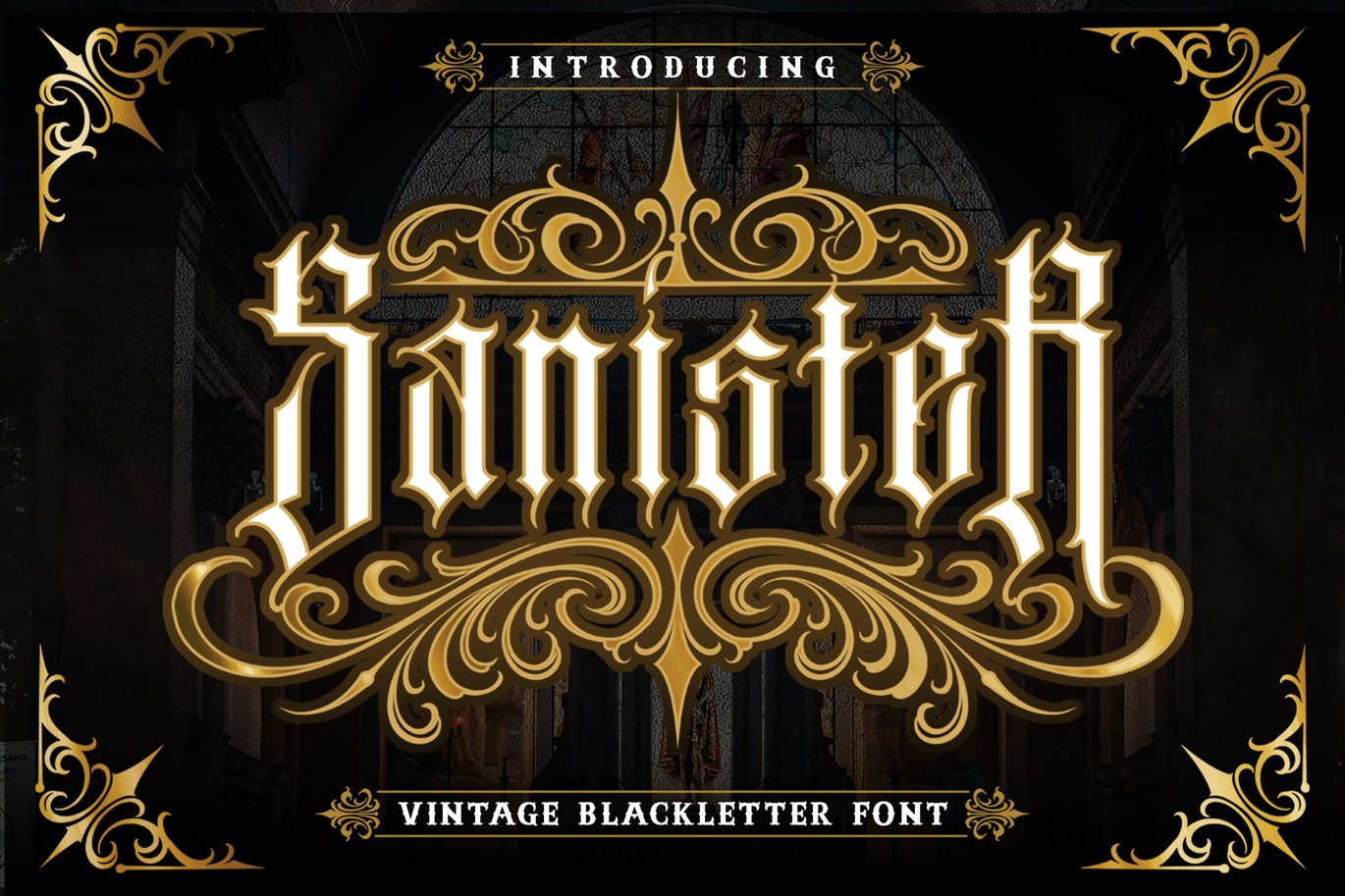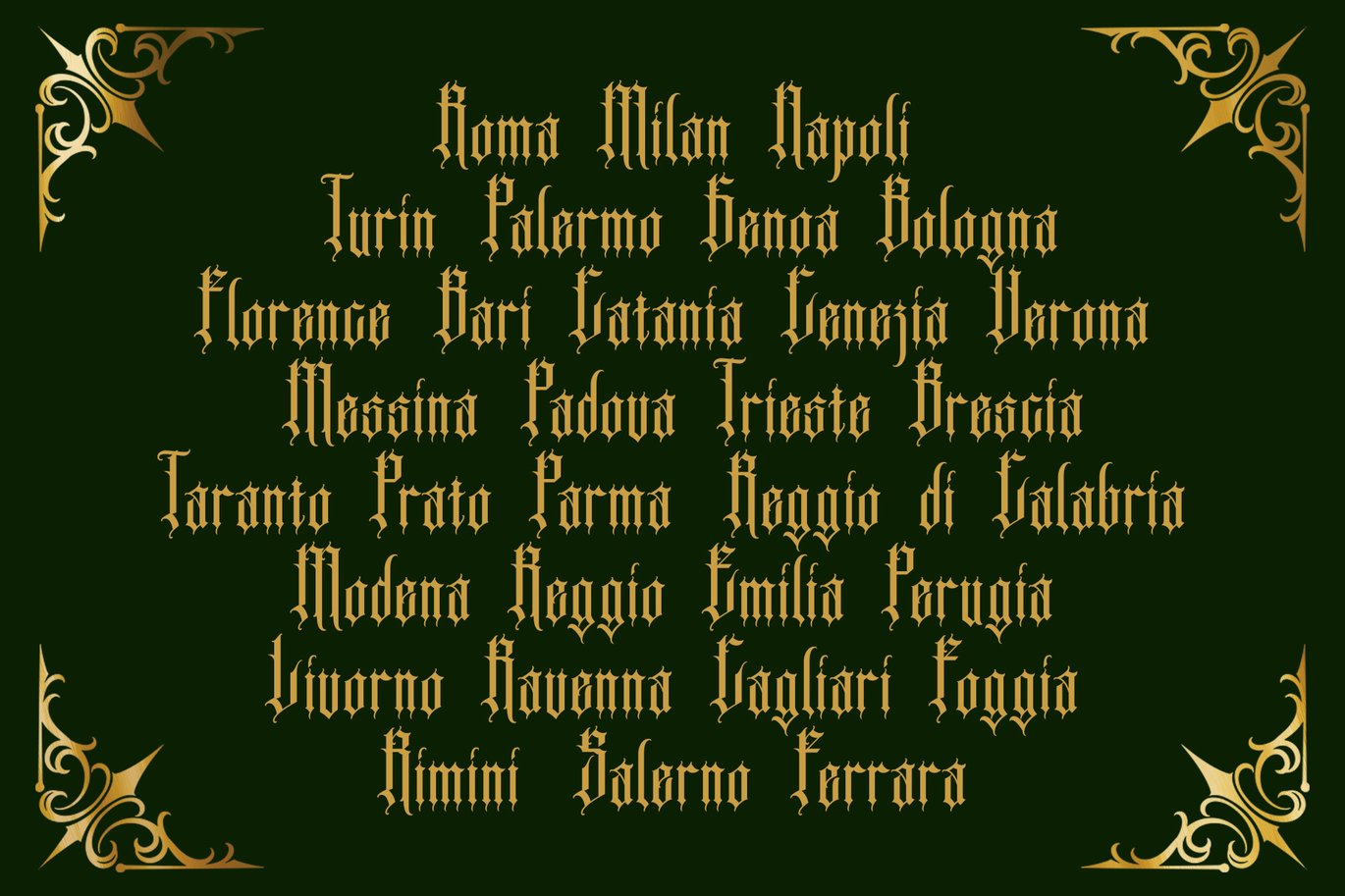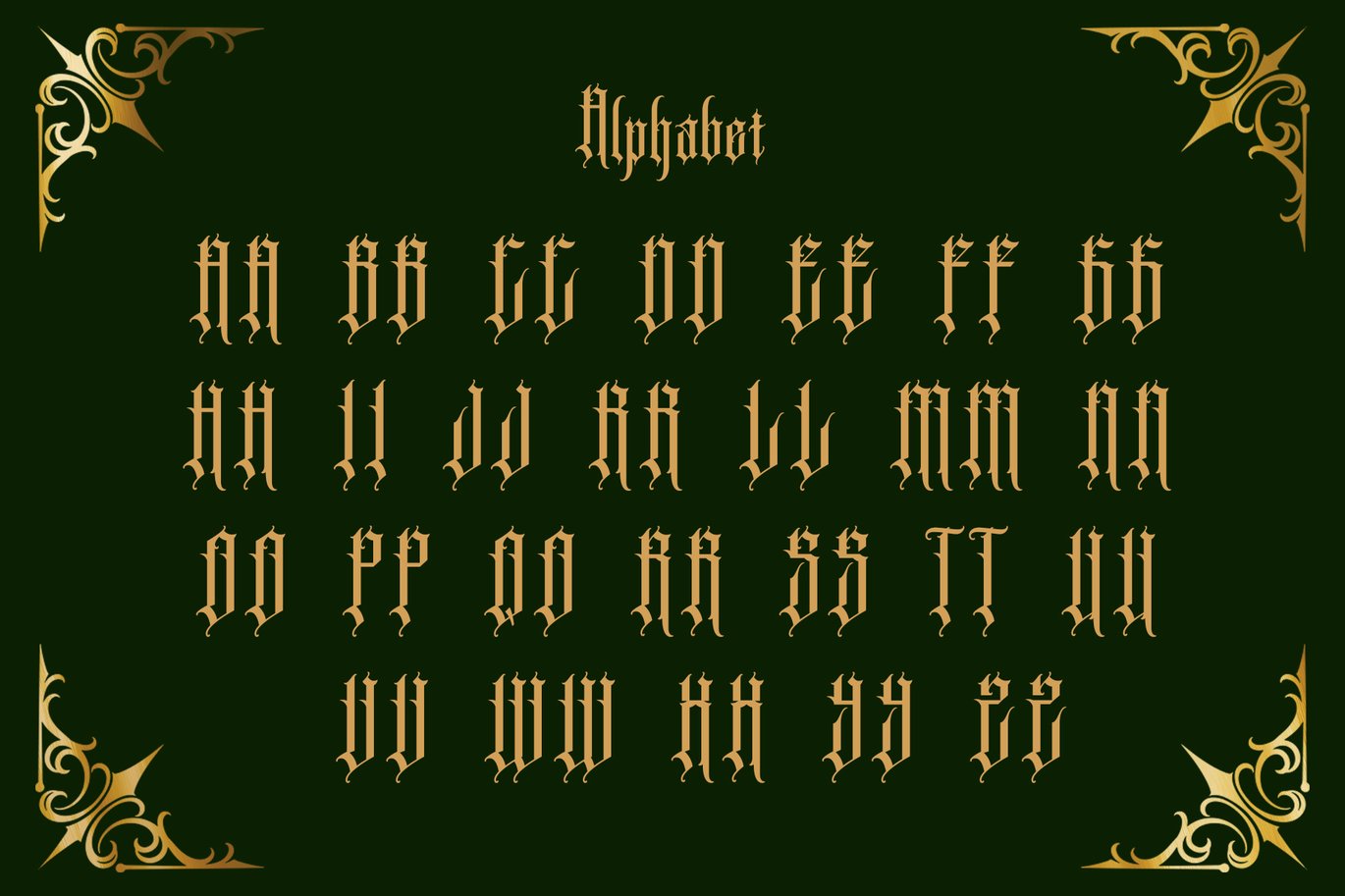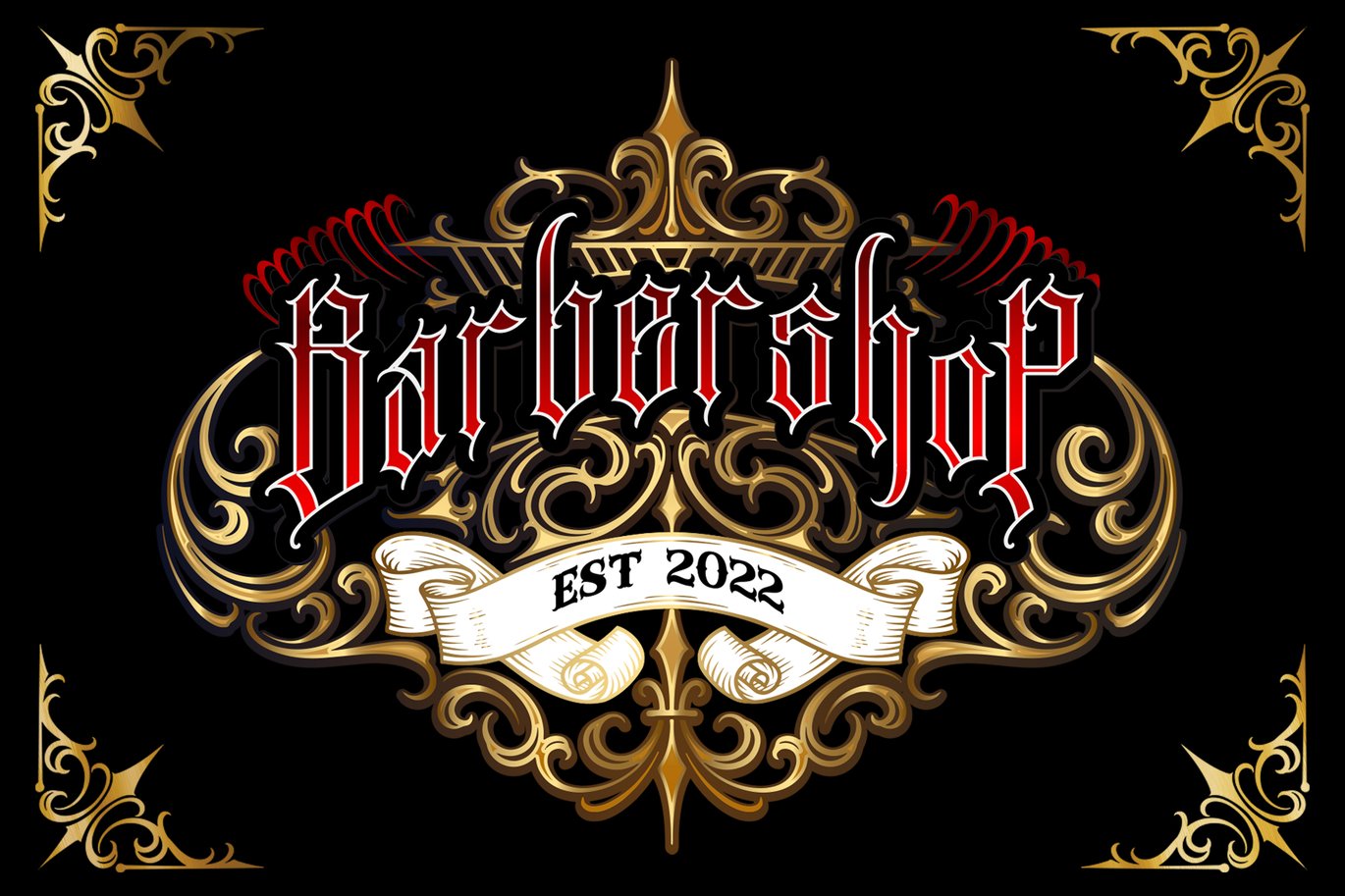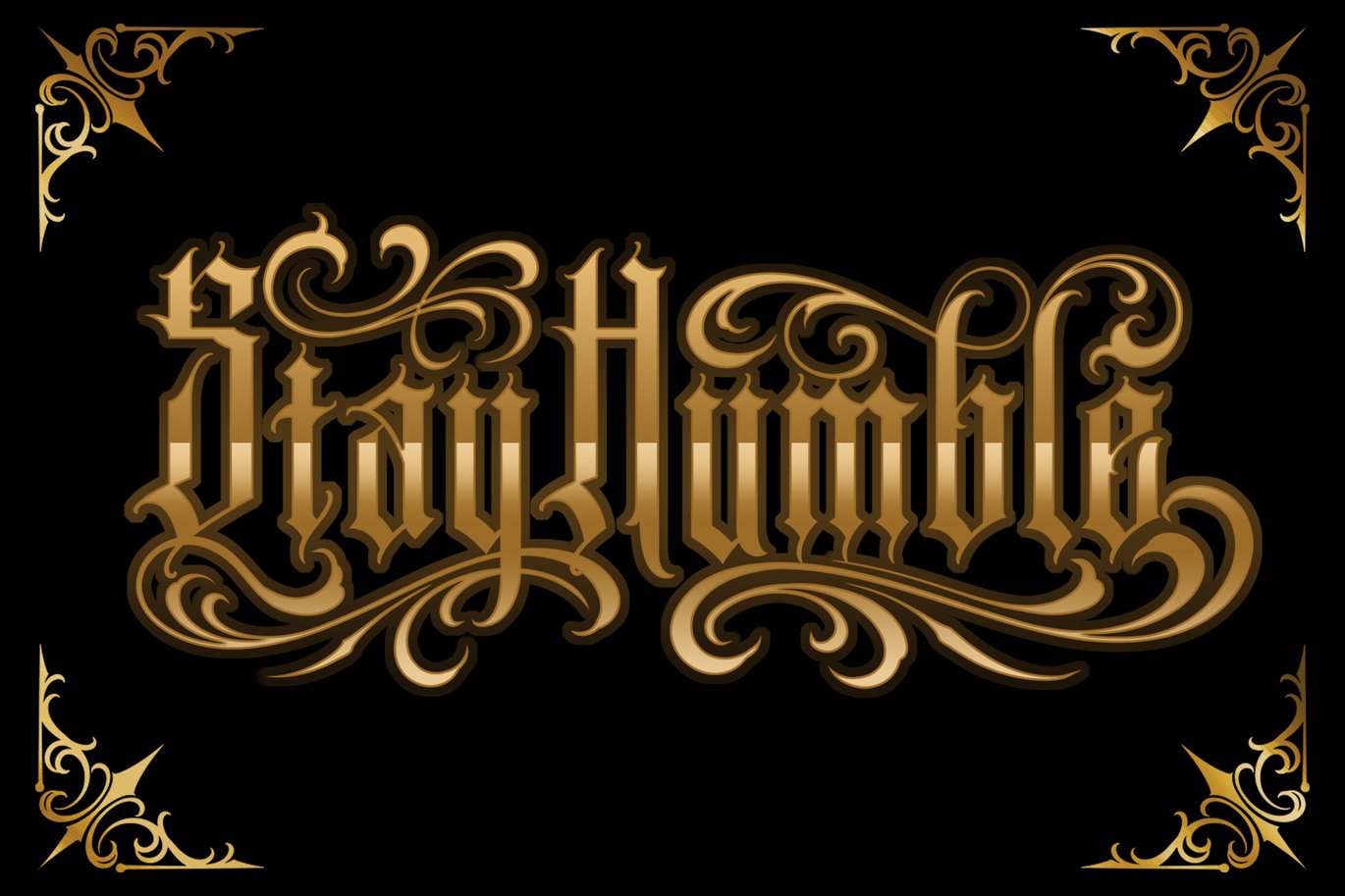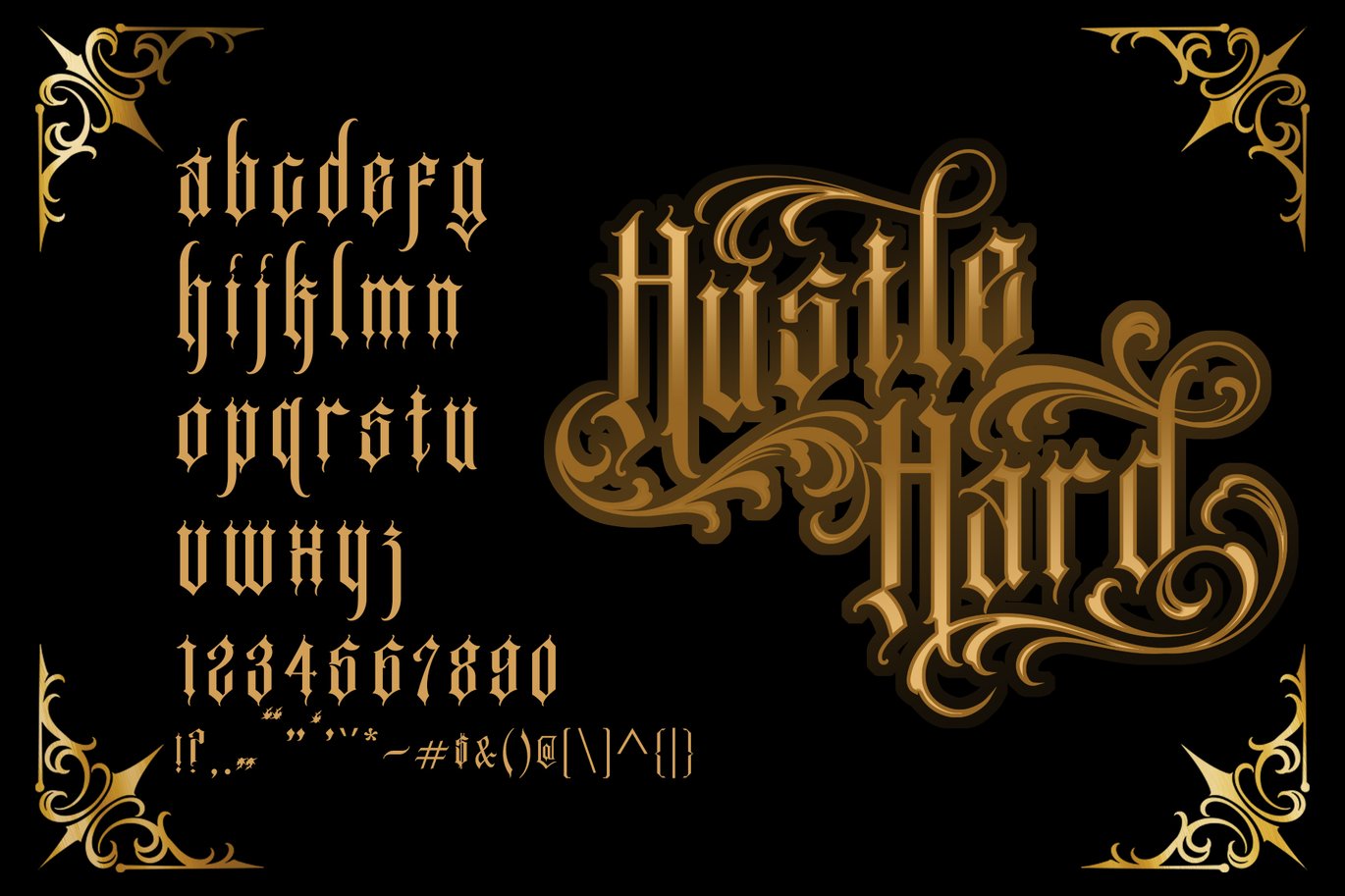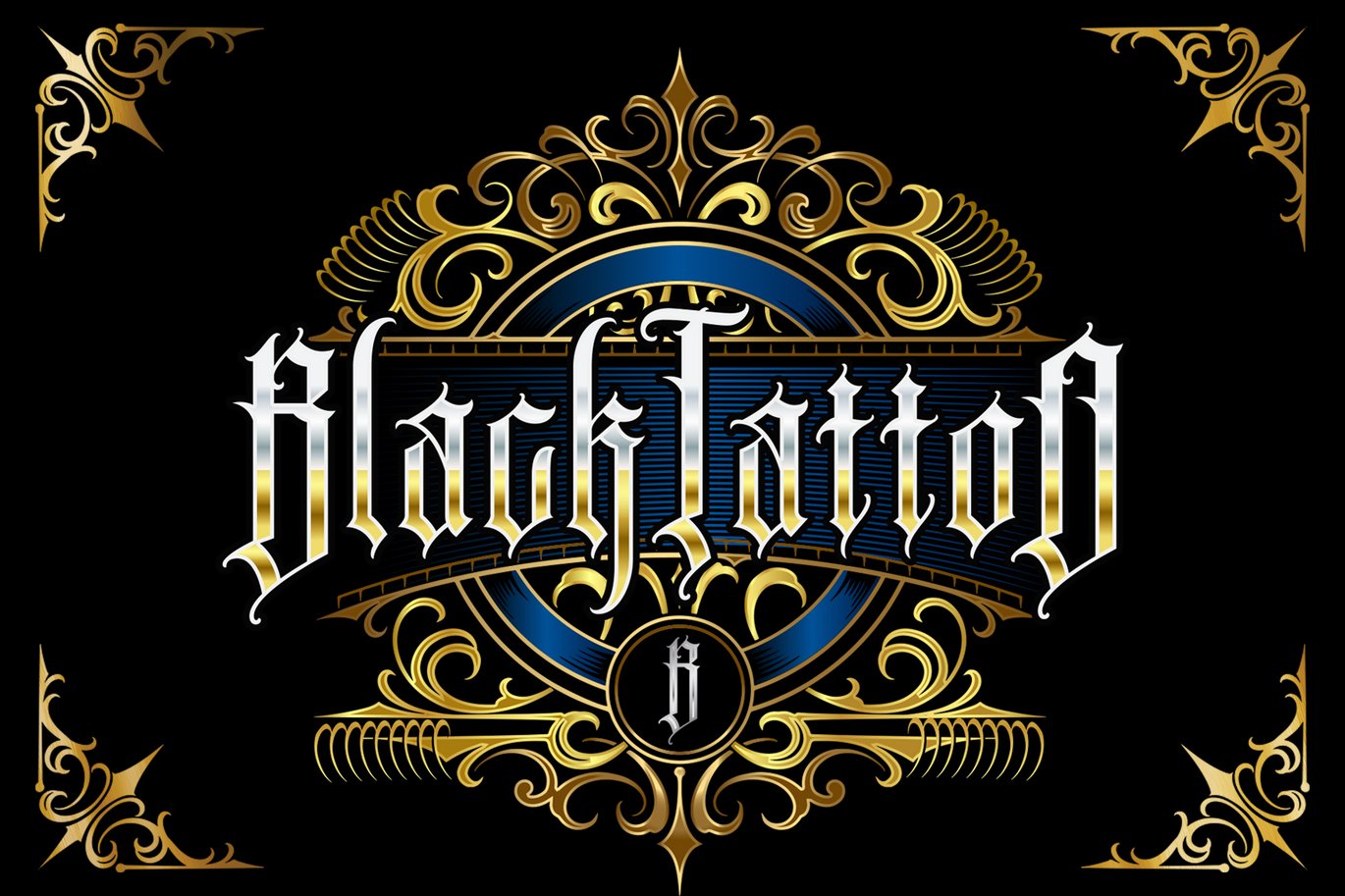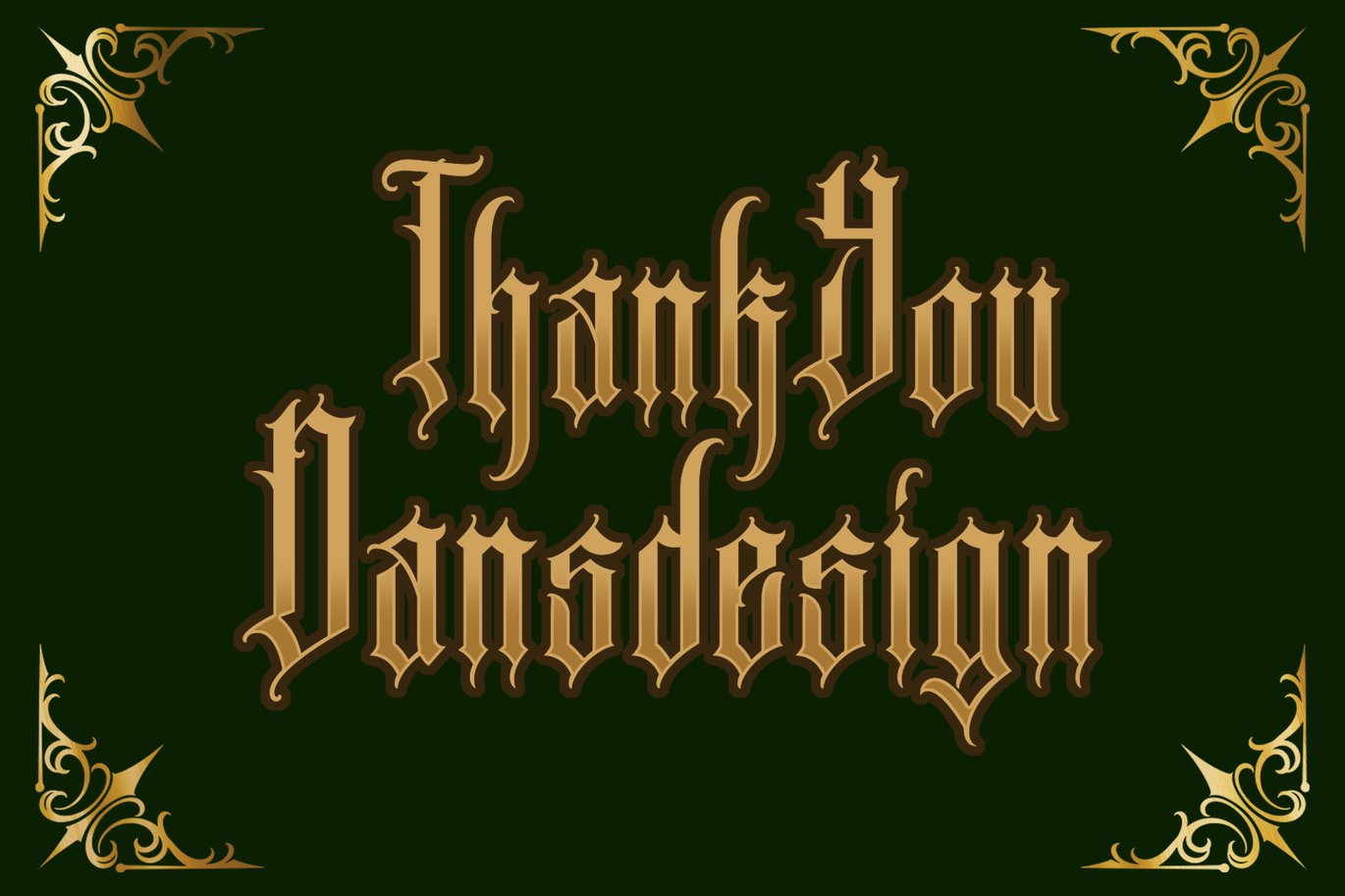
Sanister Modern Blackletter Font
Sanister a distinct, highly detailed, and chic Blackletter font. It would make a great choice for exquisite retro-urban designs, tattoo business branding, logos, vintage designs, and more.